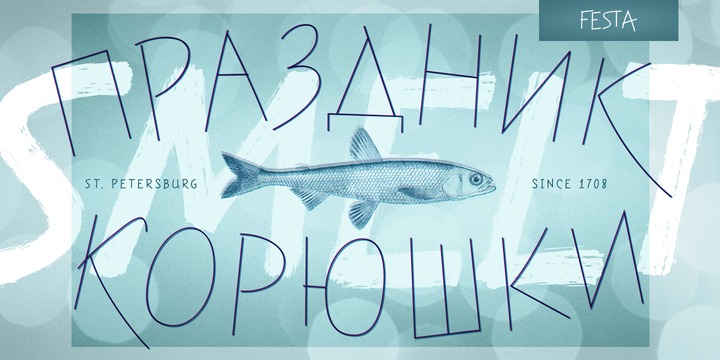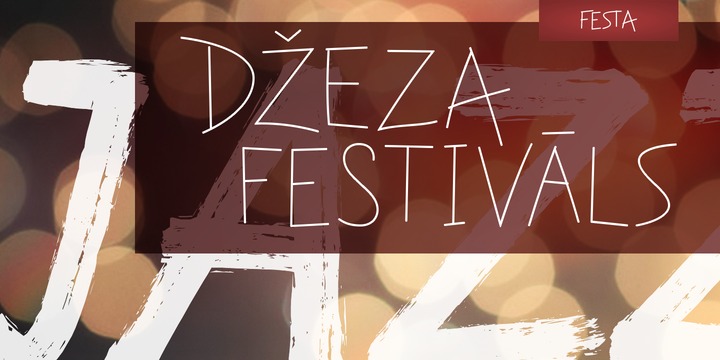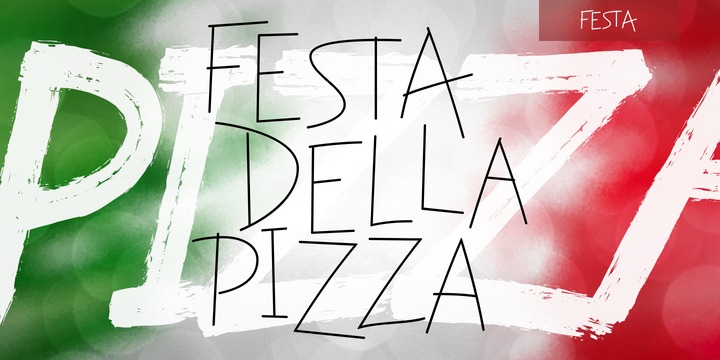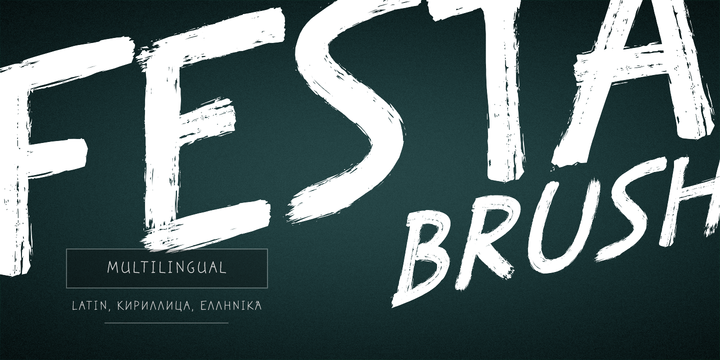
Festa font family
Festa is a multilingual handwritten type family. Includes Latin, Cyrillic and base Greek alphabets. Also Festa supports the following OpenType features: ligatures, swashes and stylistic alternates (These features are available only for the Festa fonts. Festa Brush fonts don’t support these features).